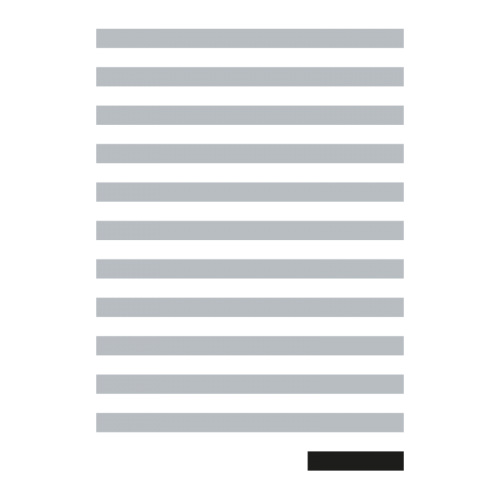
A catchword is a word placed at the foot of a handwritten or printed page that is meant to be bound along with other pages in a book. The word anticipates the first word of the following page. It was meant to help the bookbinder or printer make sure that the leaves were bound in the right order or that the pages were set up in the press in the right order.
Dutch: custode
French: réclame
German: Kustode
Polish: kustosz, kustoda
Russian: кустода
Spanish: reclamo